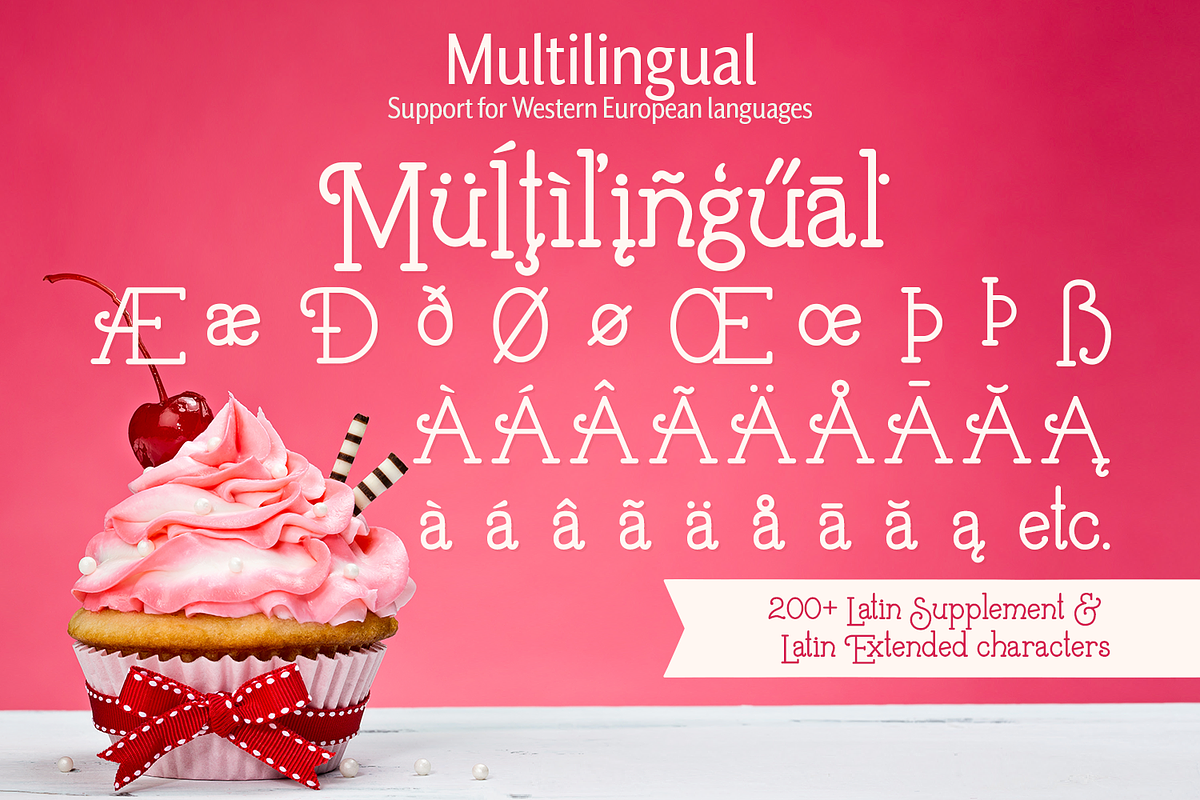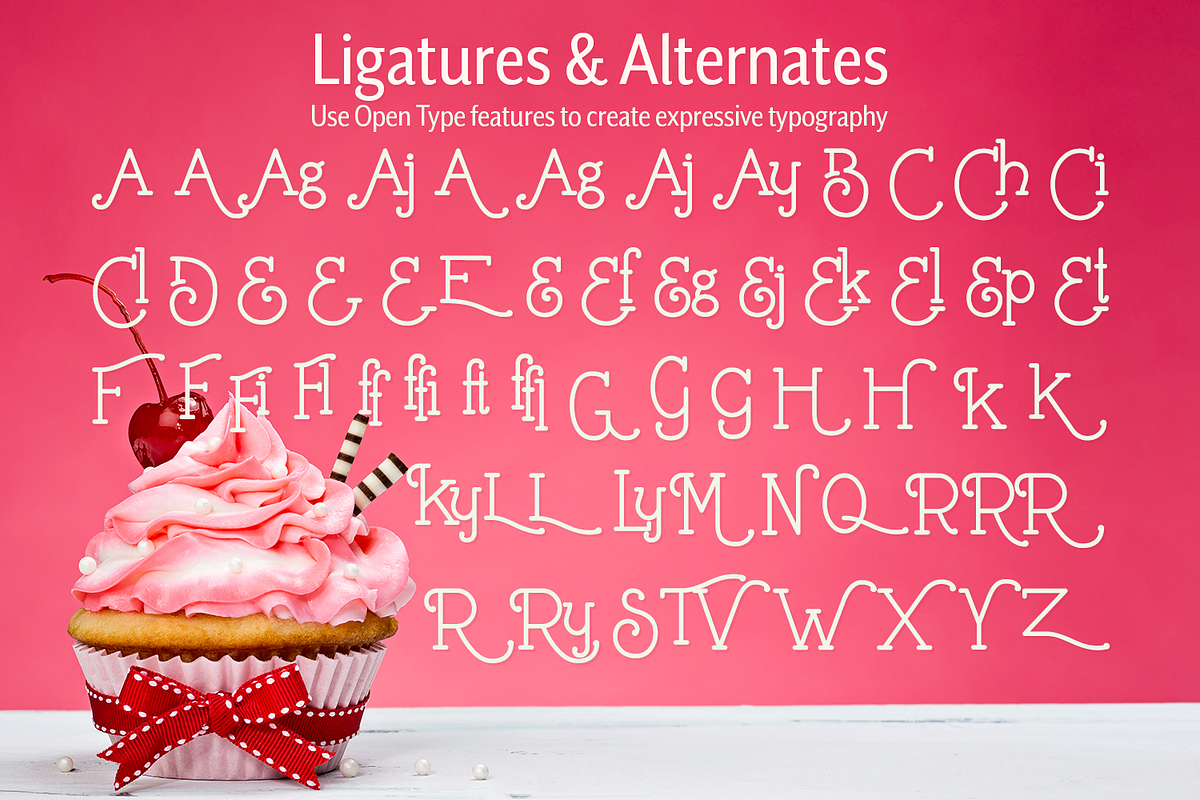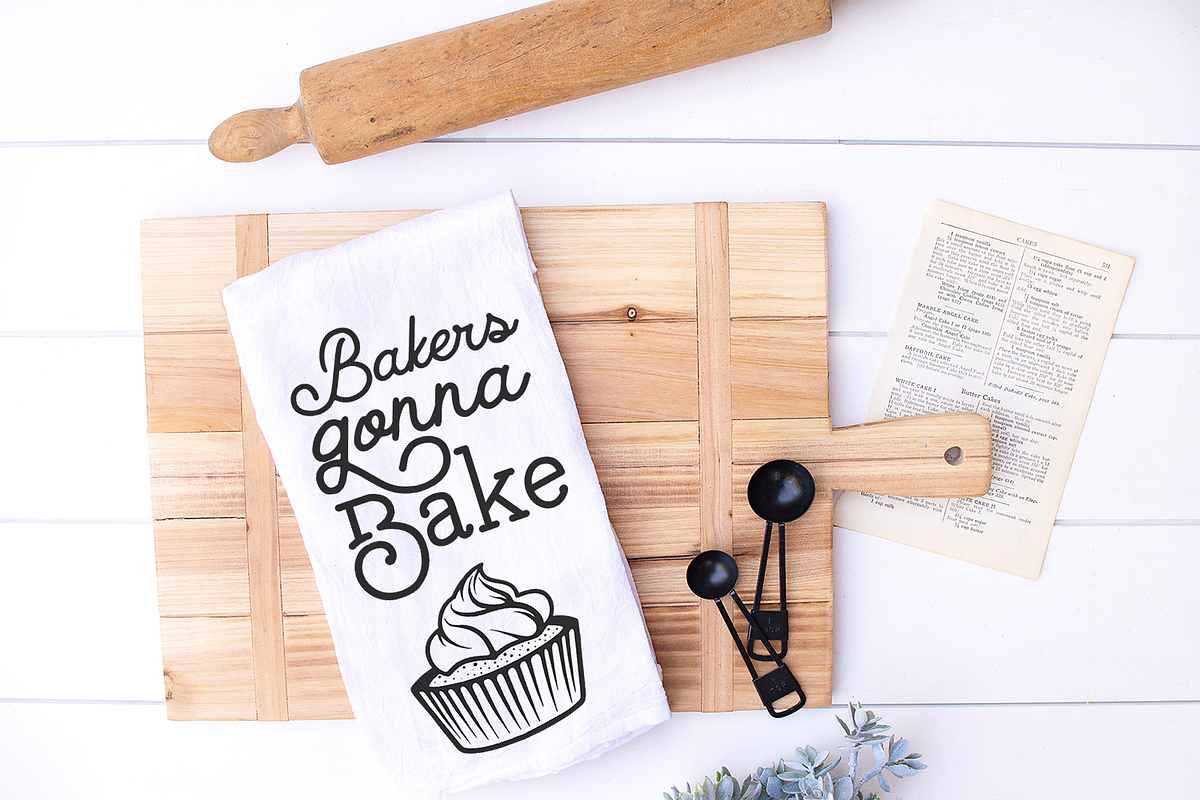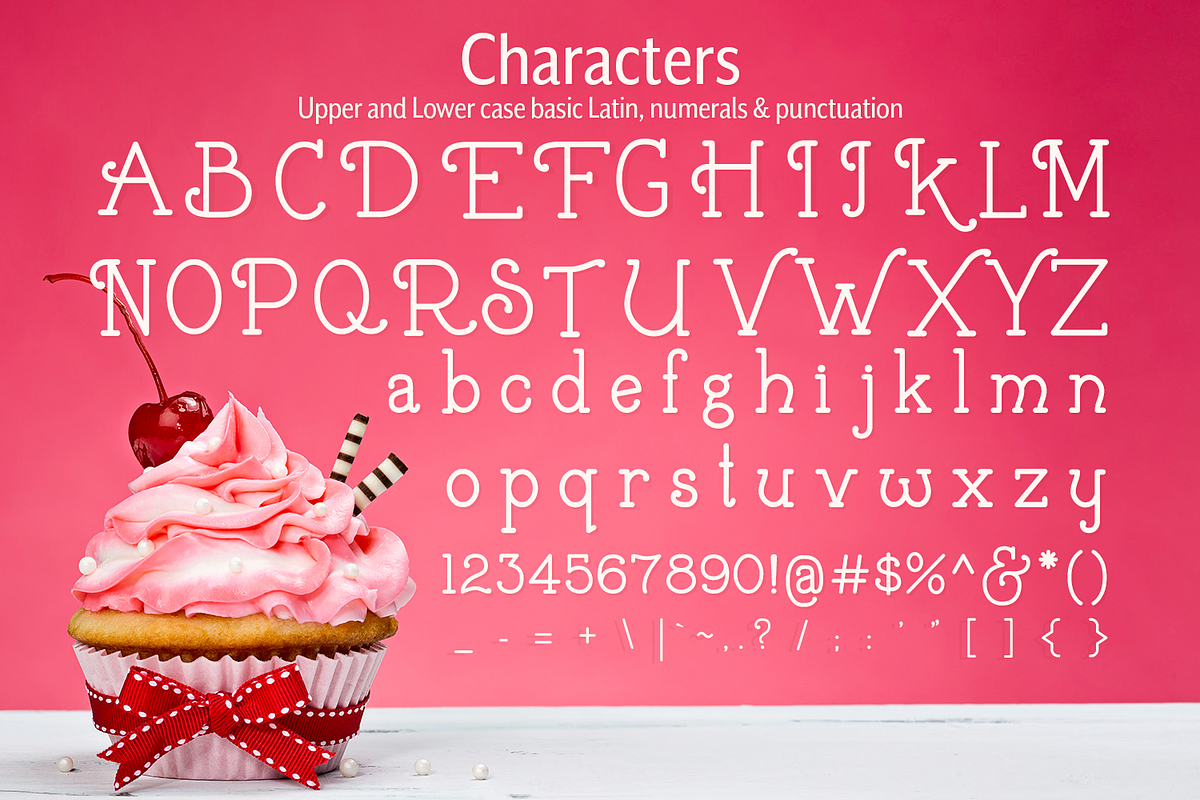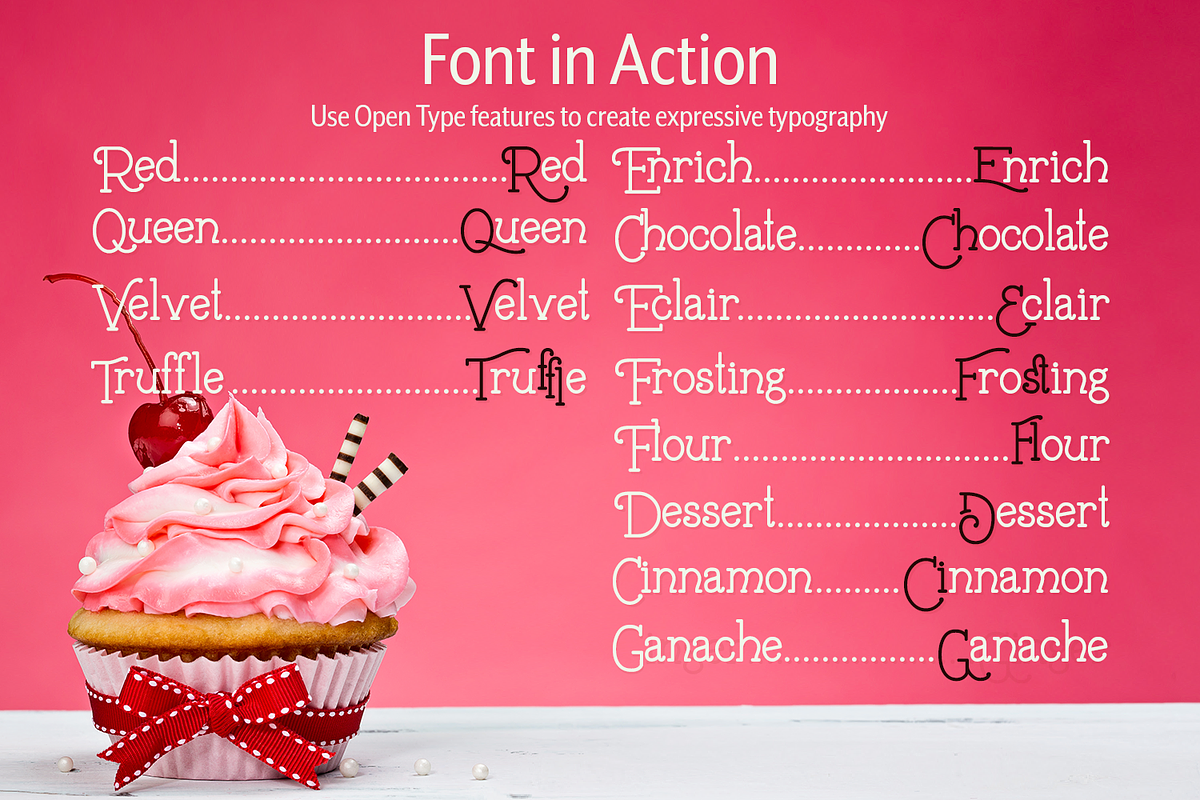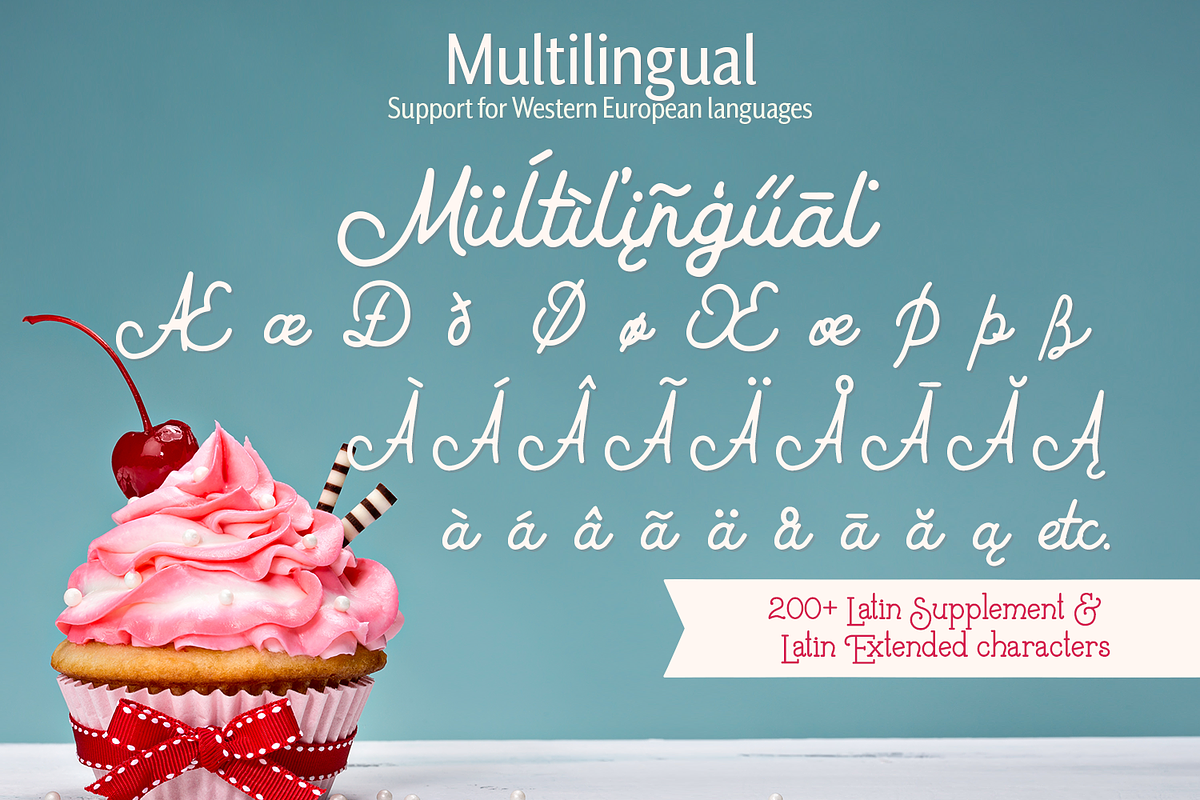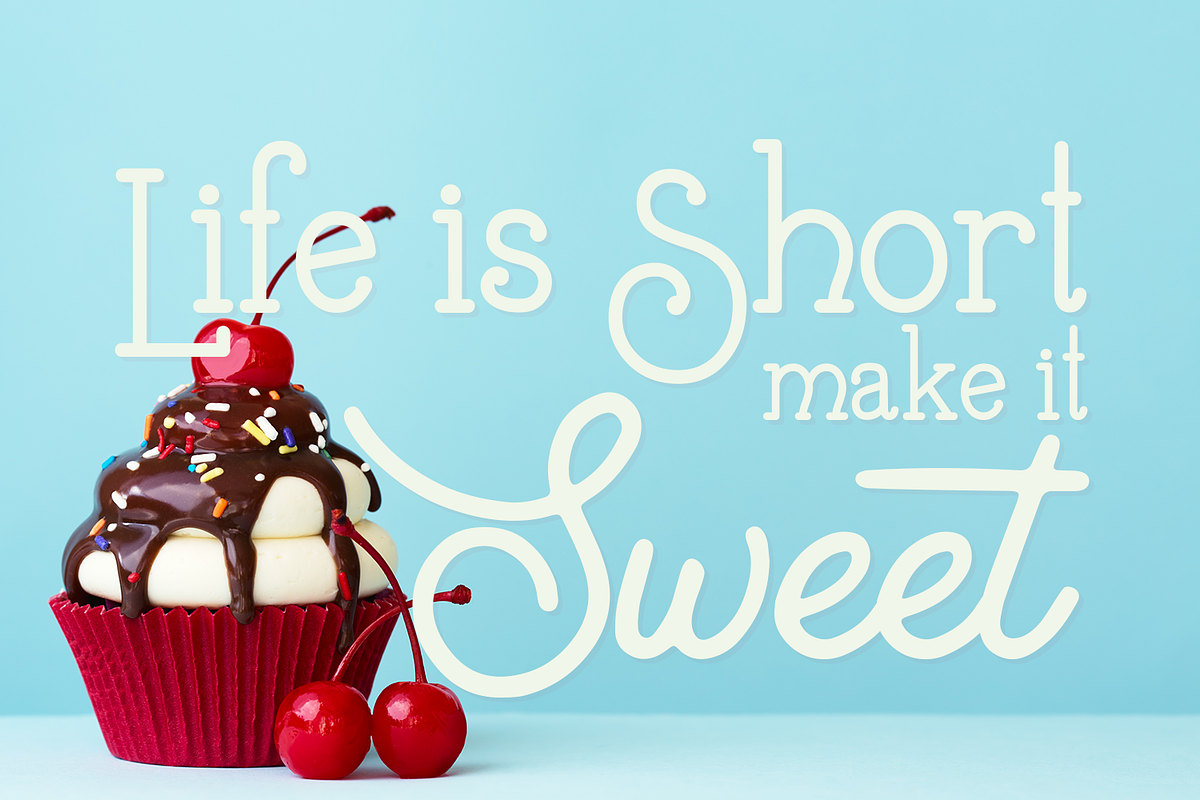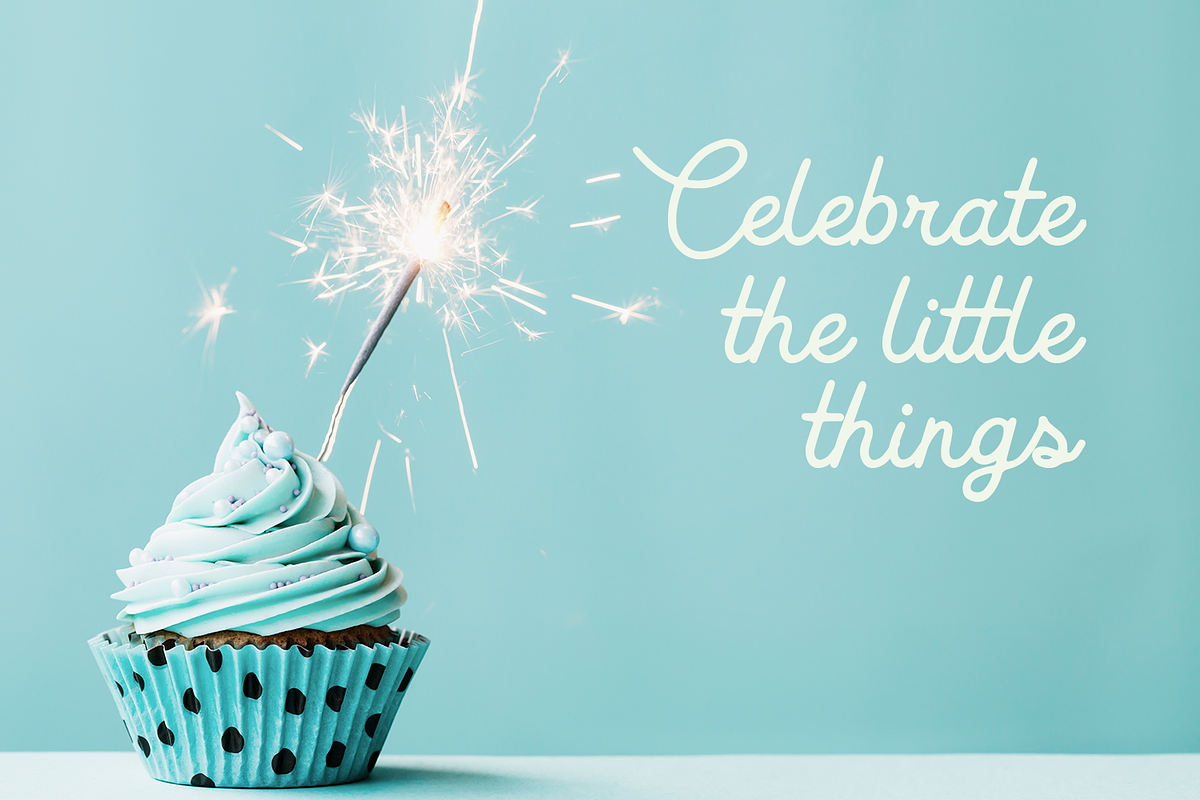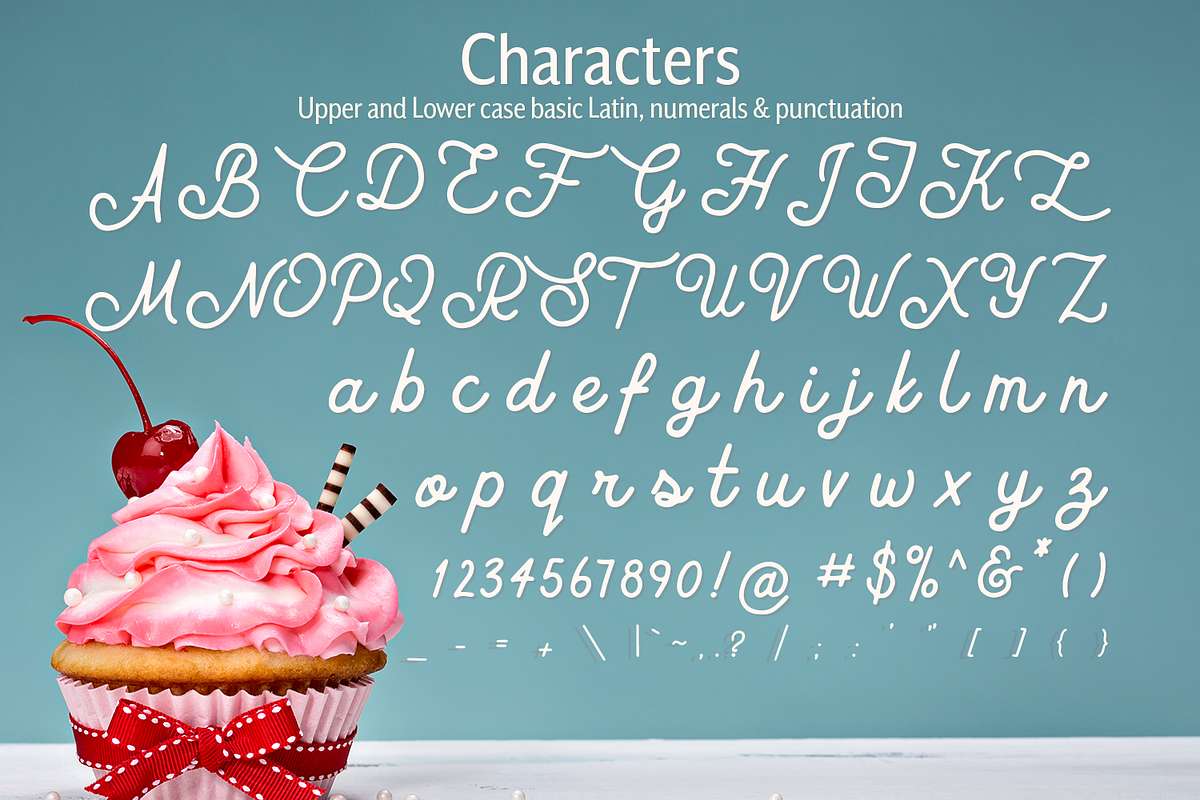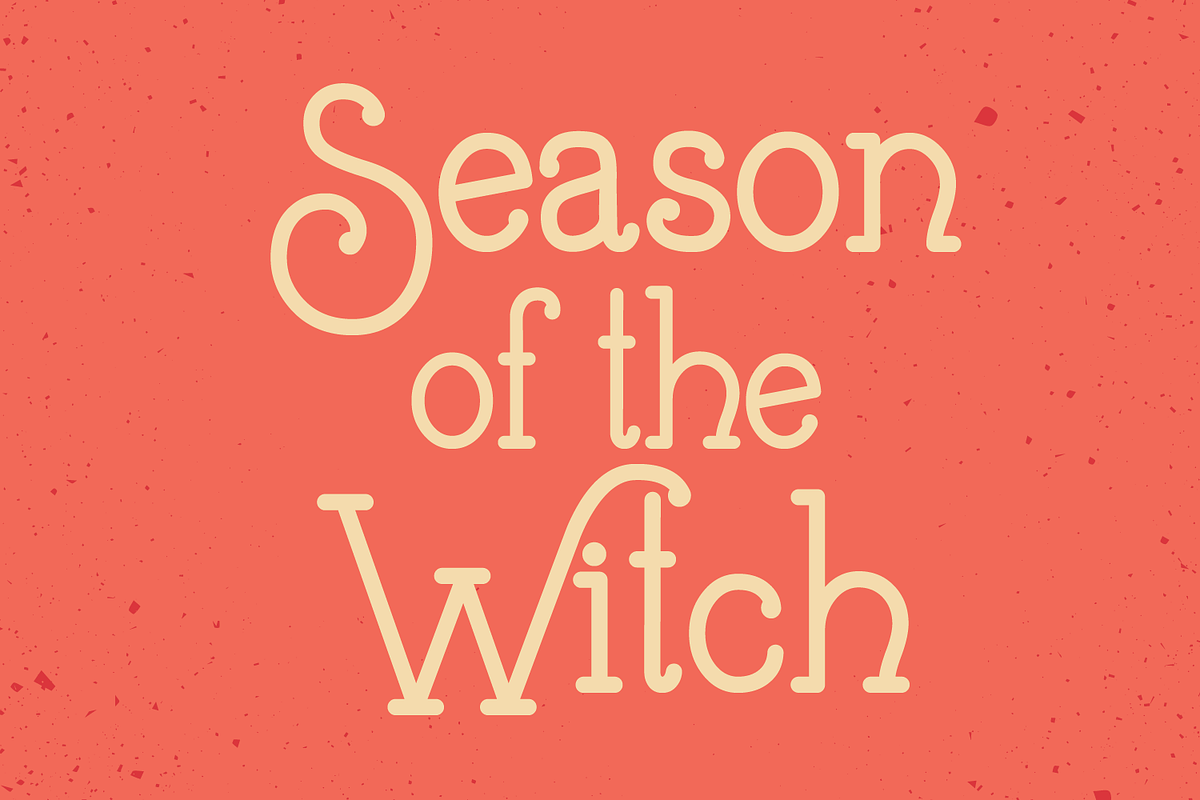
Buttercream Dream - a fancy font duo
Buttercream Dream is a fancy font duo that includes a monoline slab serif and an almost monoline script.
This duo is the perfect pairing for branding as they have been designed to be used both together and independently. These two fonts complement and contrast well together.
You can use these fonts on t-shirts, tea towels, greeting cards, invitations, signage, business cards, napkins, tableware and so much more! These are a versatile pairing, limited only by your imagination. Both Buttercream Dream - Slab Serif and Buttercream Dream - Script make use of Open Type features such as Ligatures, Stylistic Alternates, and Discretionary Ligatures. Enable these features to create typography that's fun, expressive, and unique.